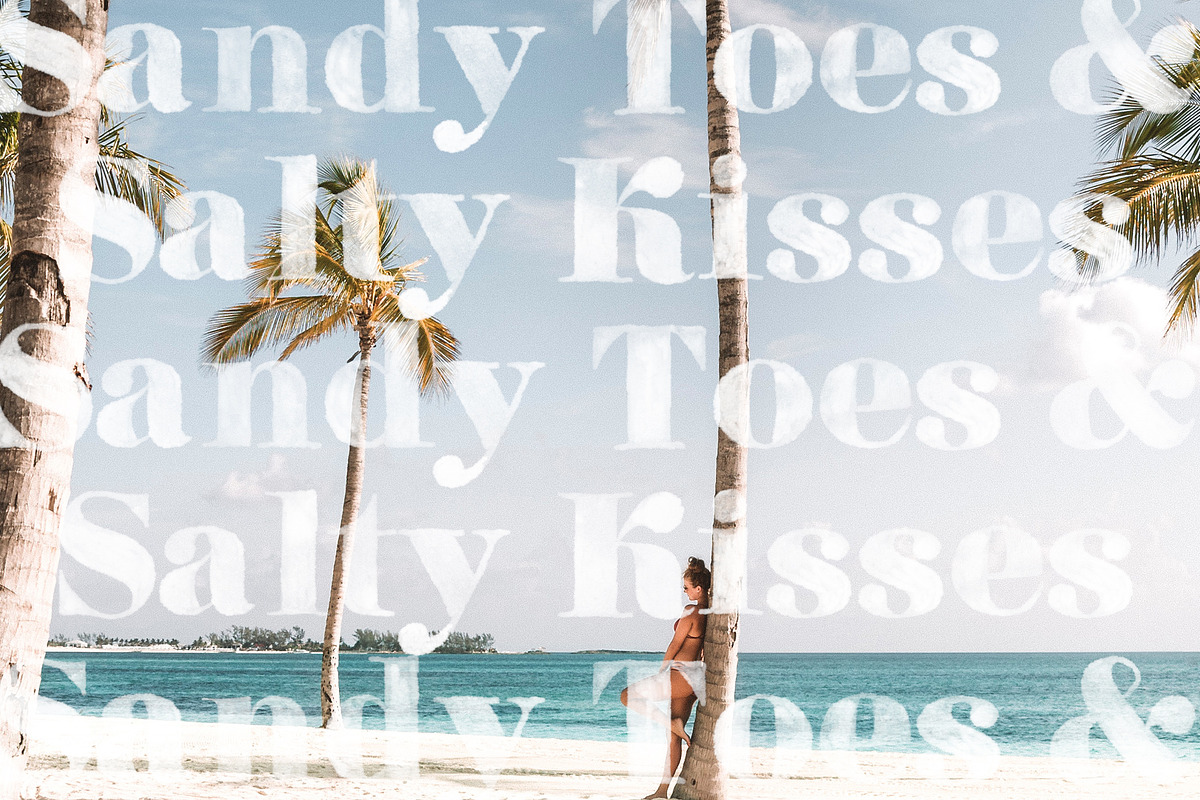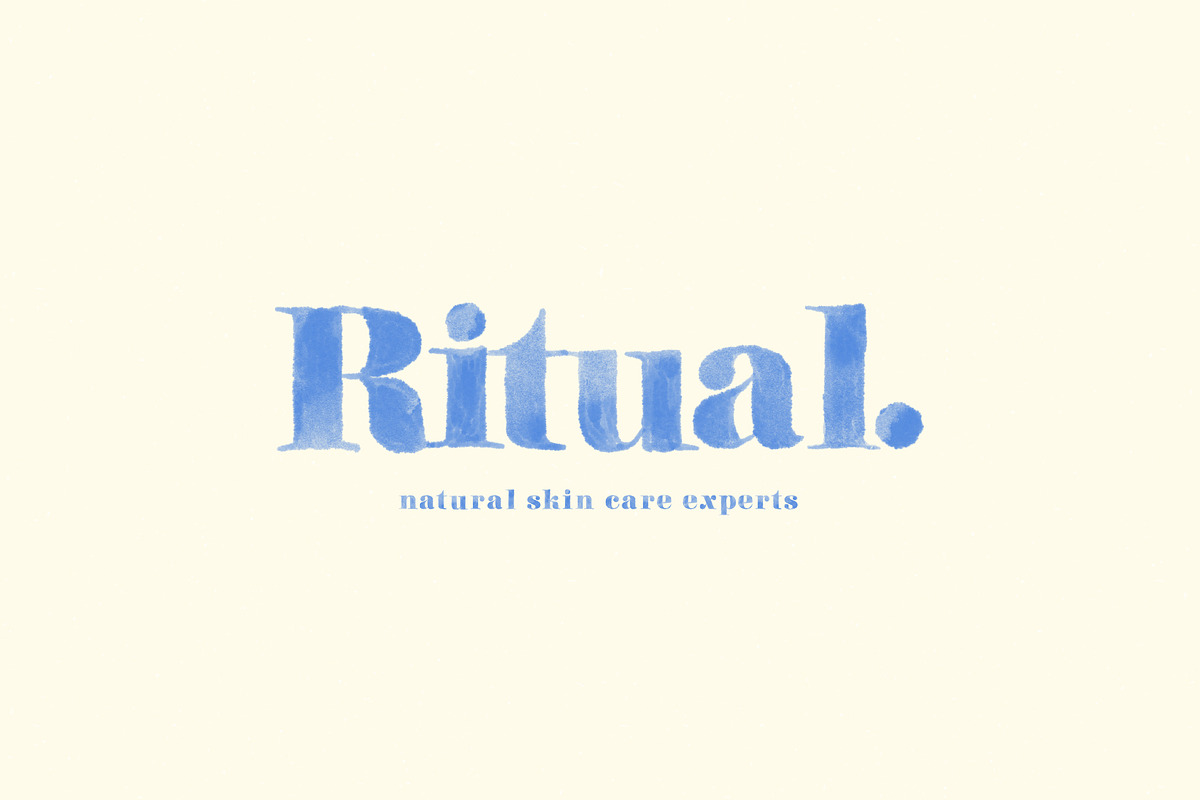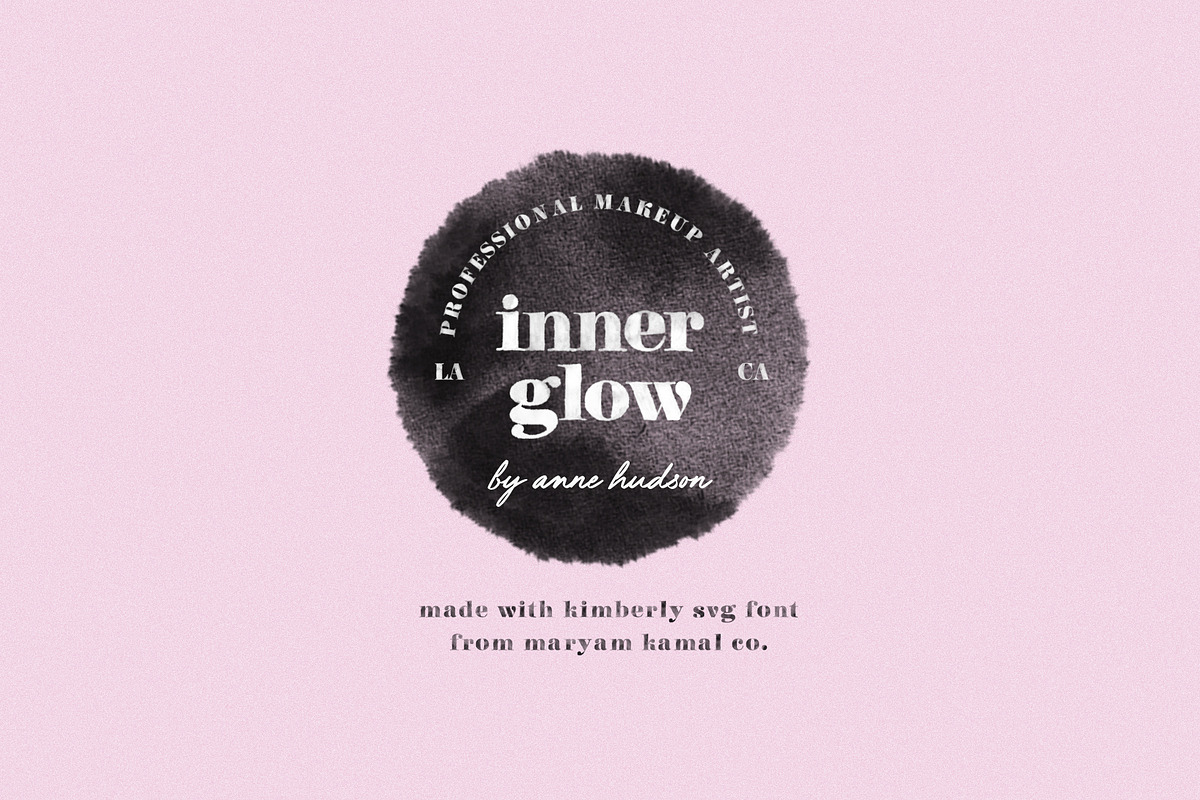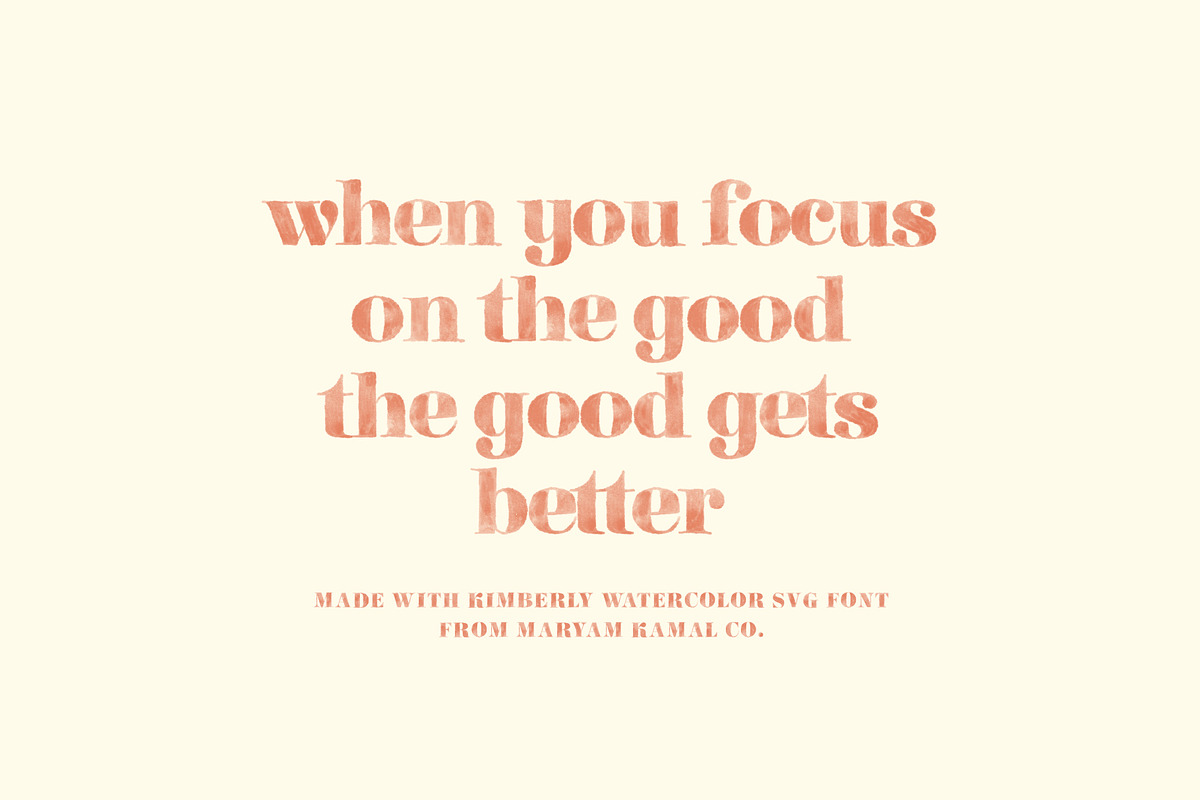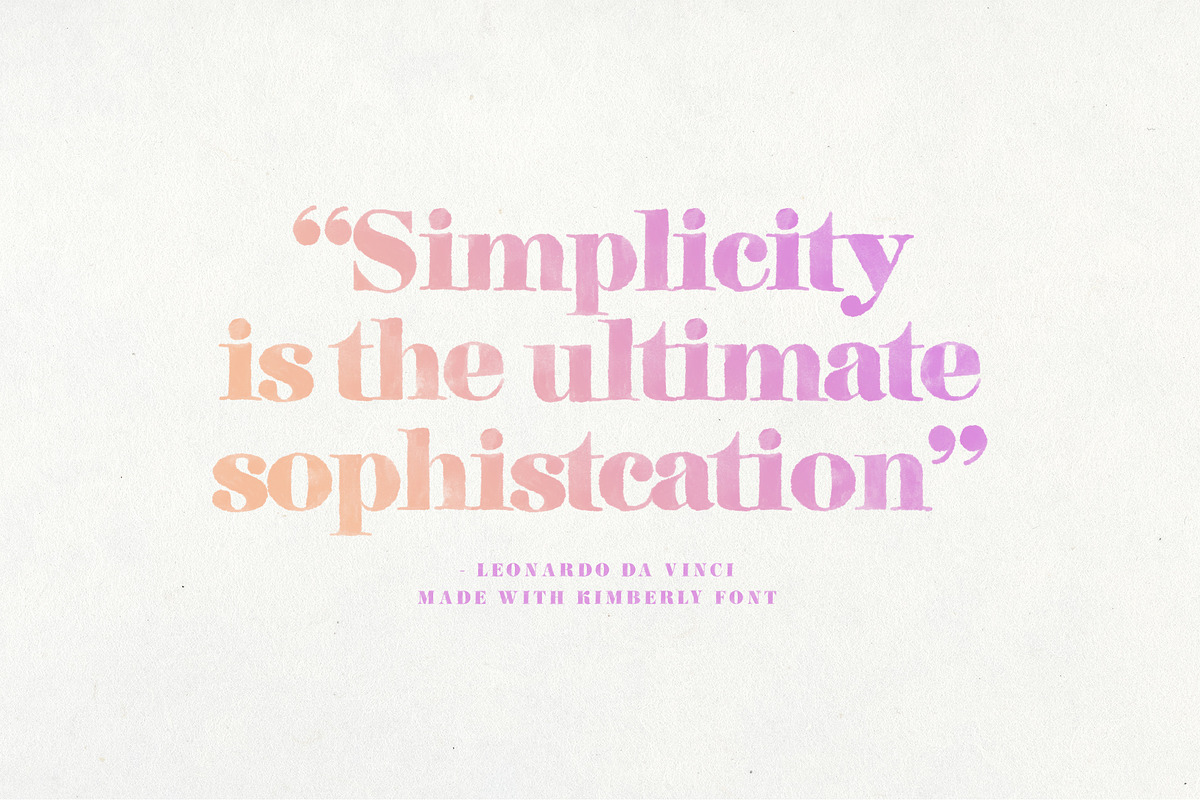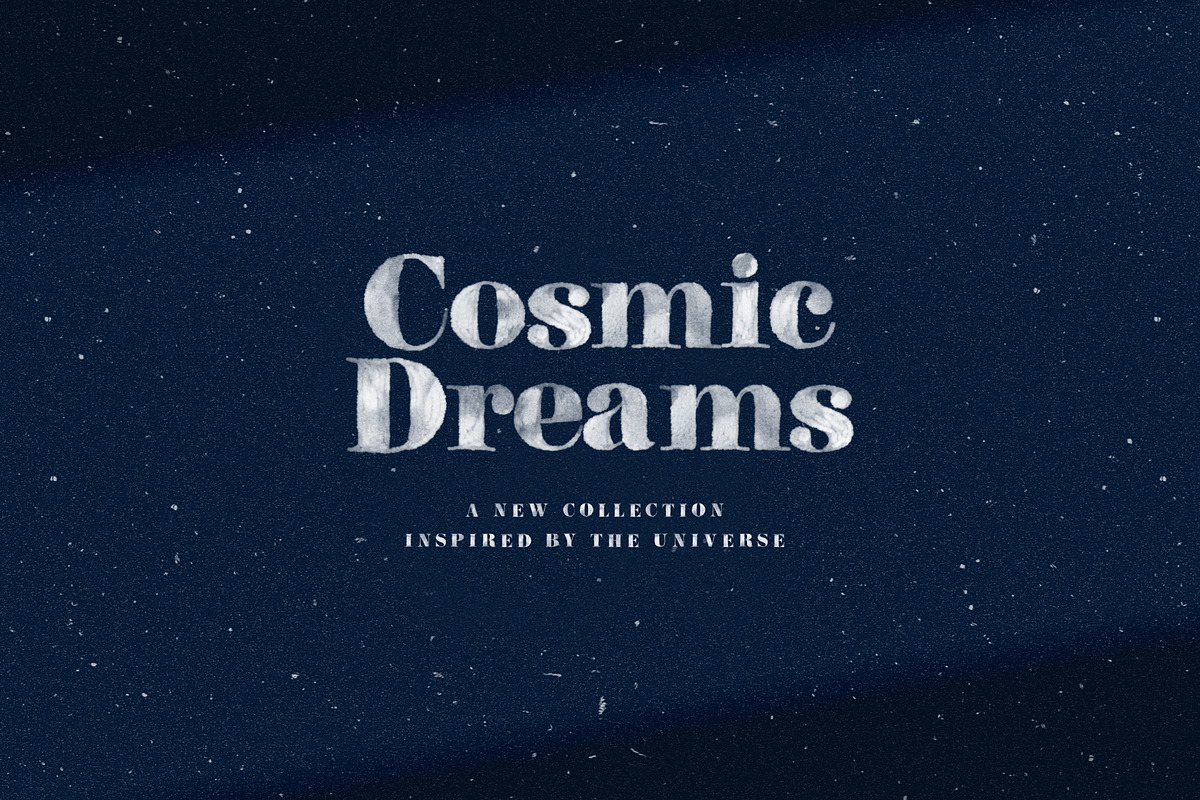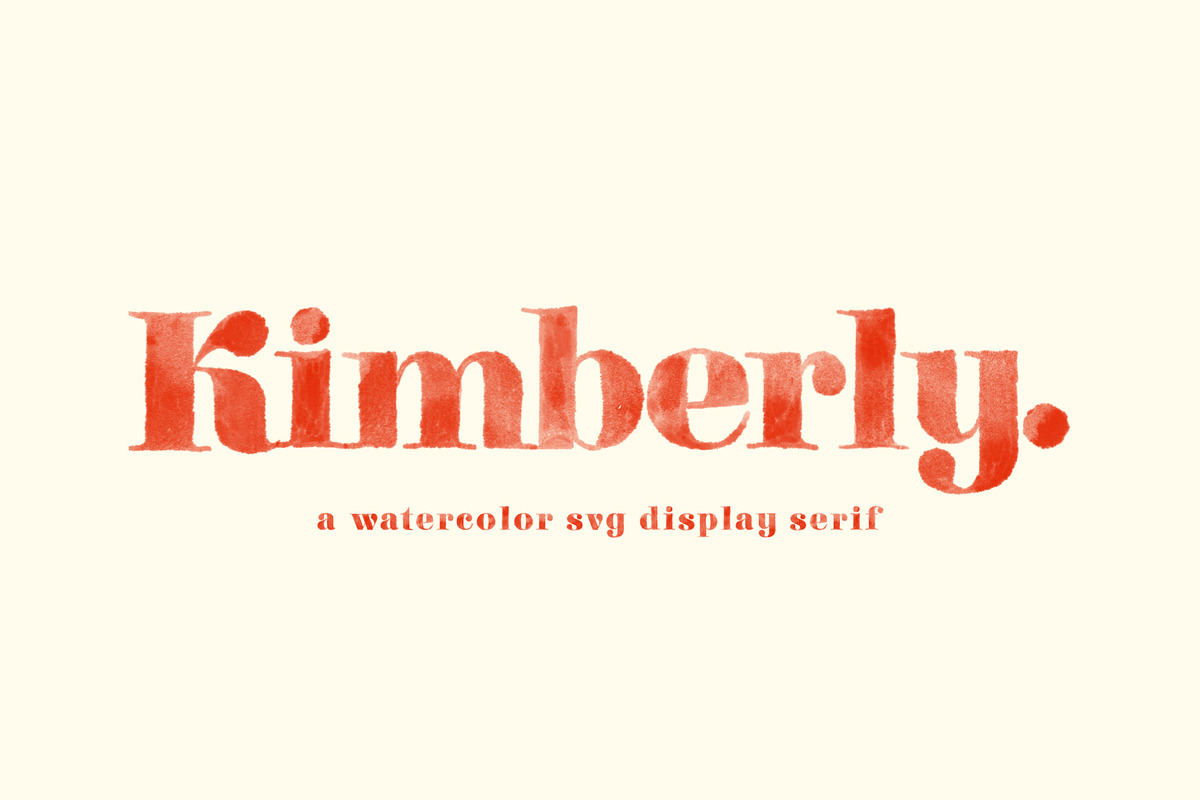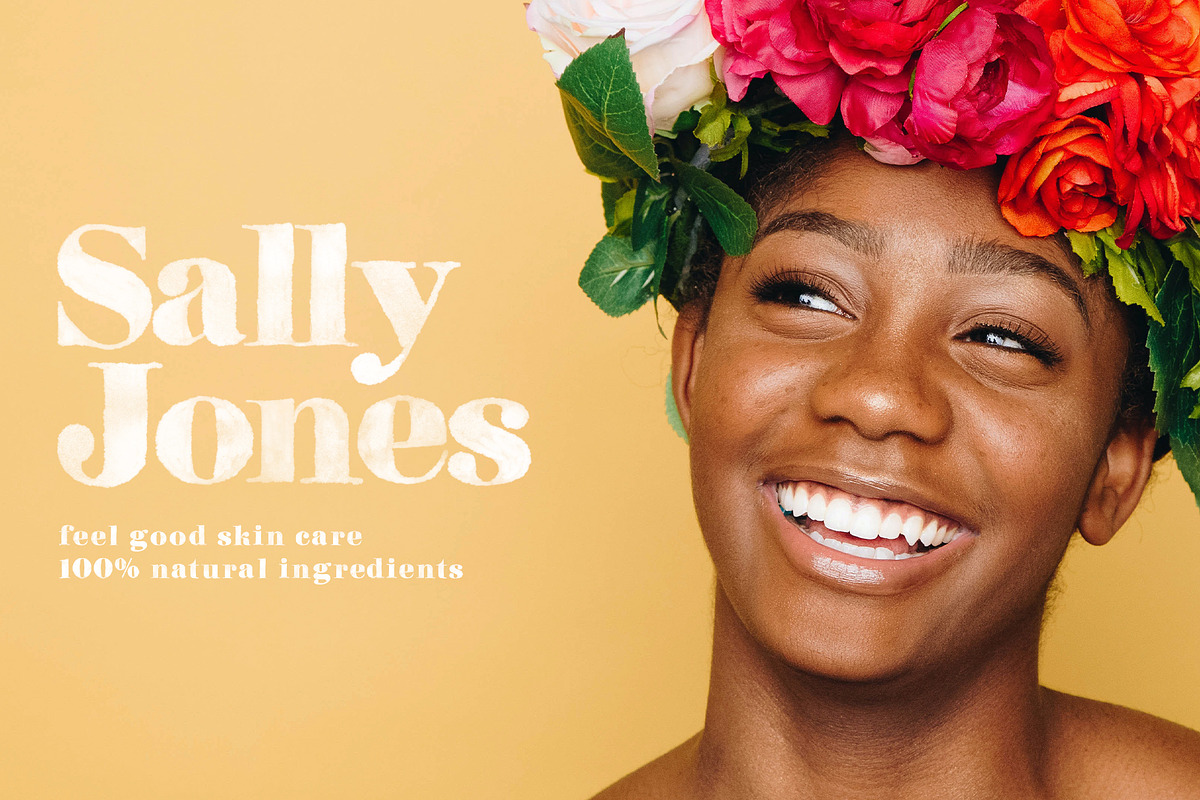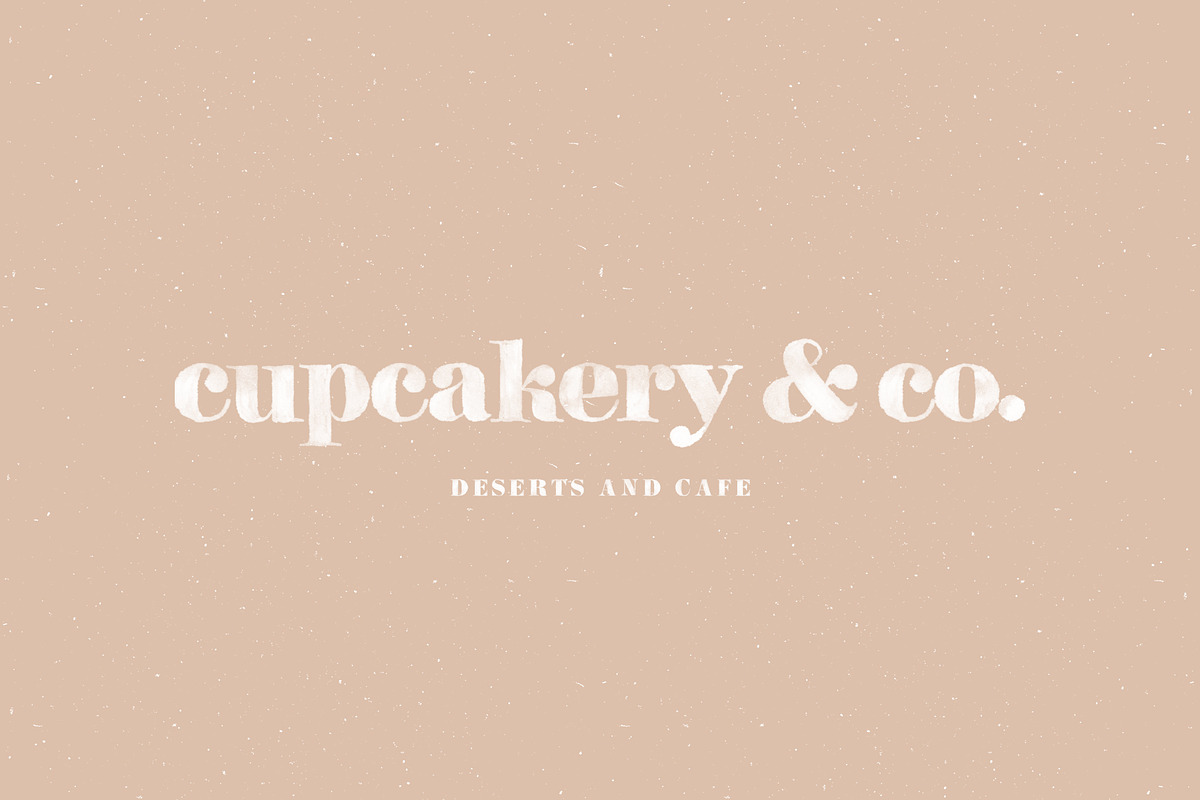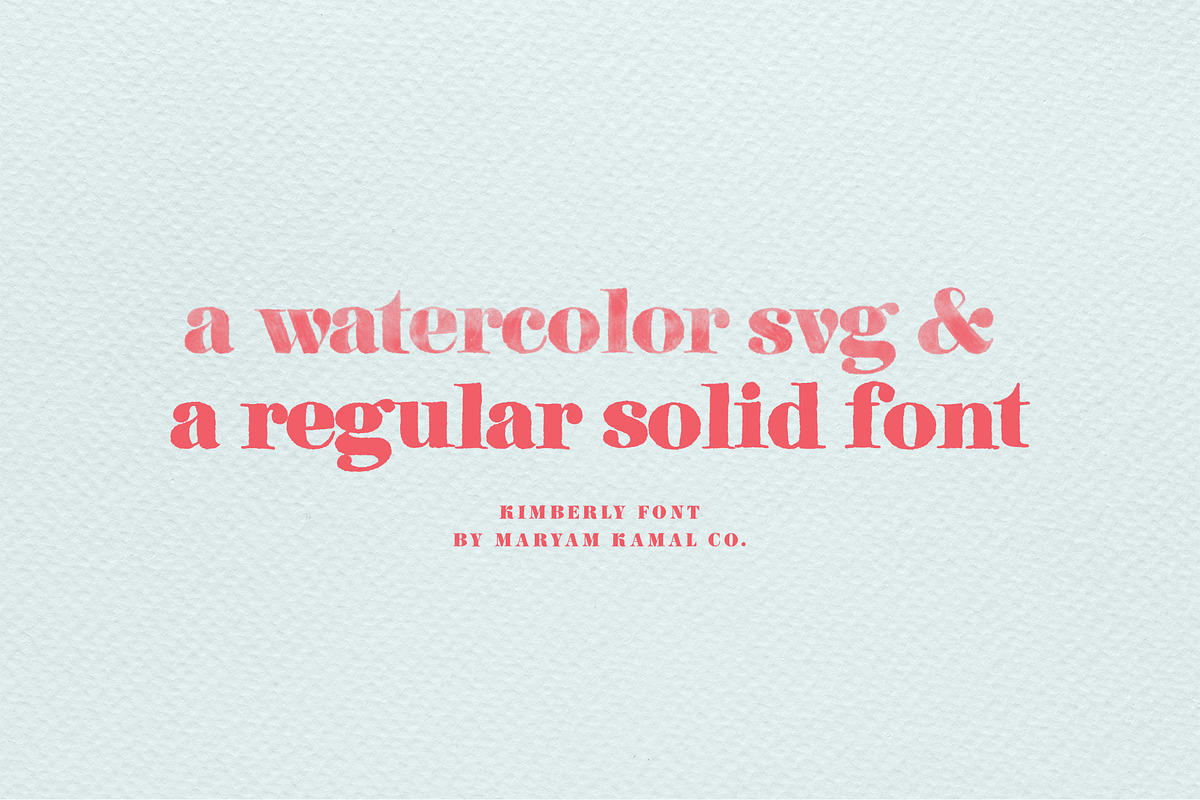
Kimberly - Watercolor svg + regular
Introducing Kimberly - A classic watercolor display serif.
a hand painted didone inspired typeface, with strong contrasts for a modern yet classy and feminine look.
A regular font version with rough edges is also included! Multi-lingual support is included with both the SVG and regular font versions.